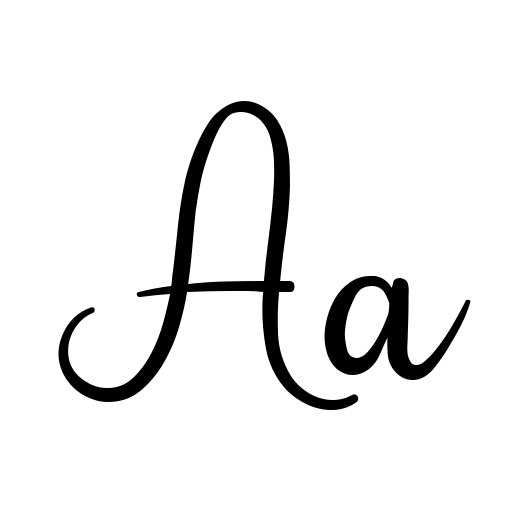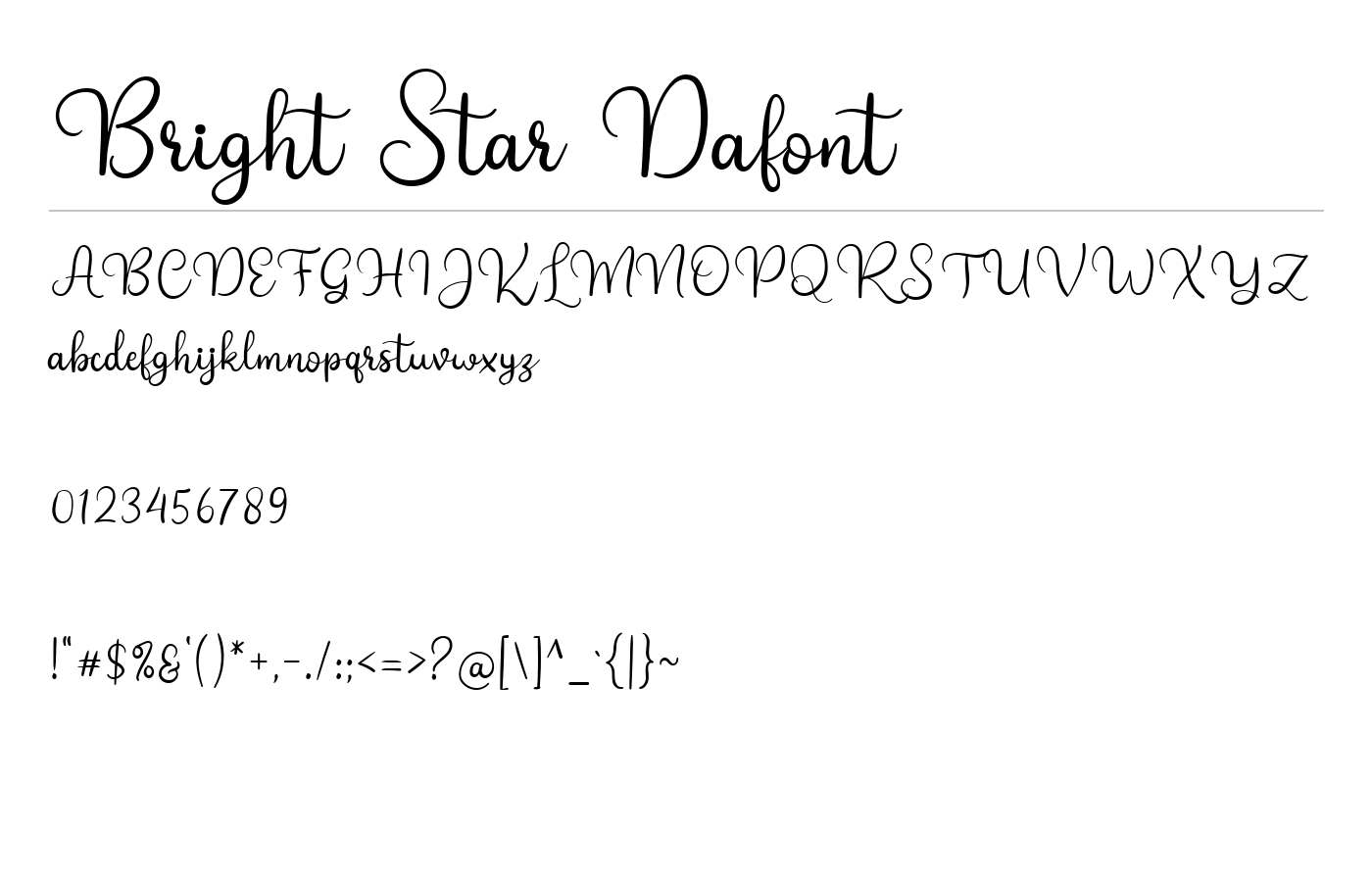
Bright Star Dafont is a delicate, handwritten script font with a narrow width and elegant, flowing strokes that create a charming and graceful feel. Its thin lines and subtle curls give it a light, playful personality, making it ideal for invitations, greeting cards, or feminine branding that seeks a personal, approachable touch. This font works best in decorative, headline, or short text uses where its stylish character can truly shine.
Bright Star Dafont
| Font family | Bright Star Dafont |
| Designer | Jos Gandos |